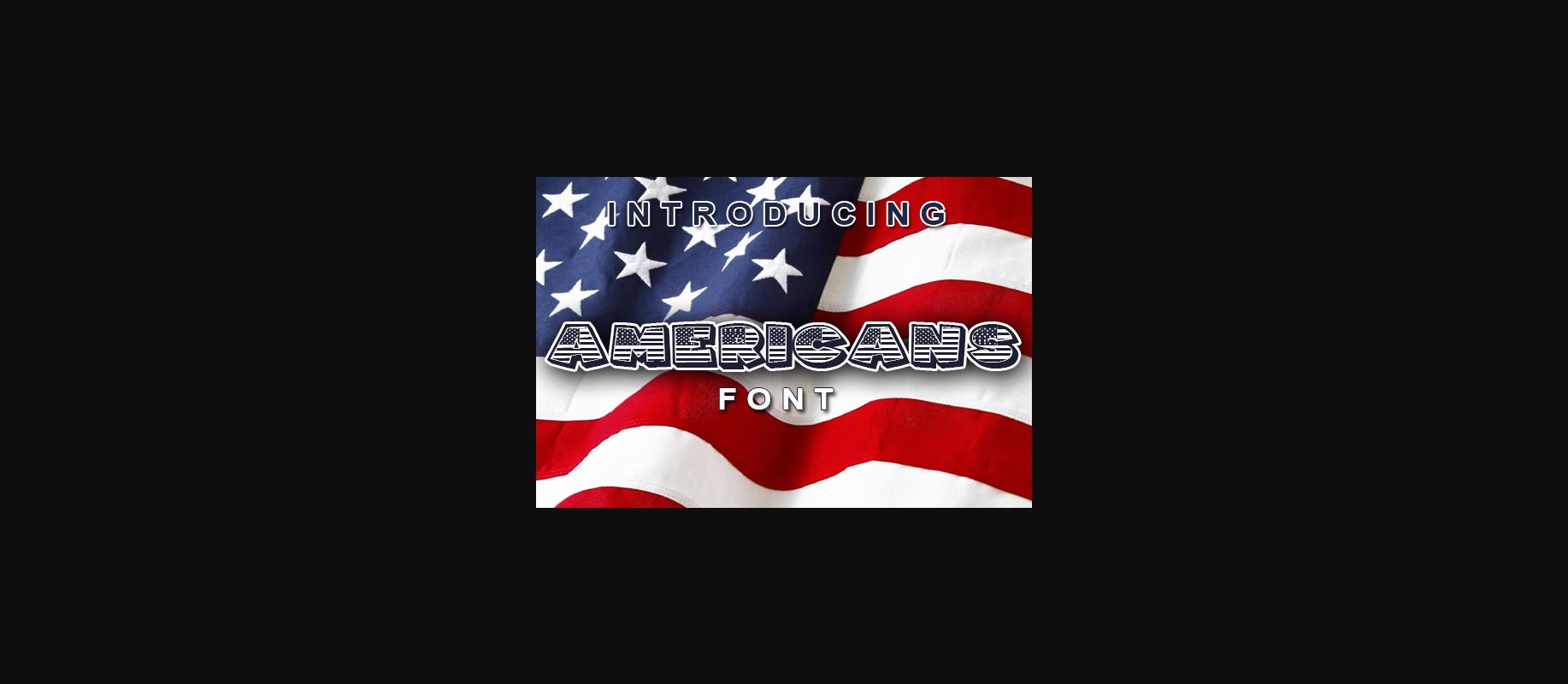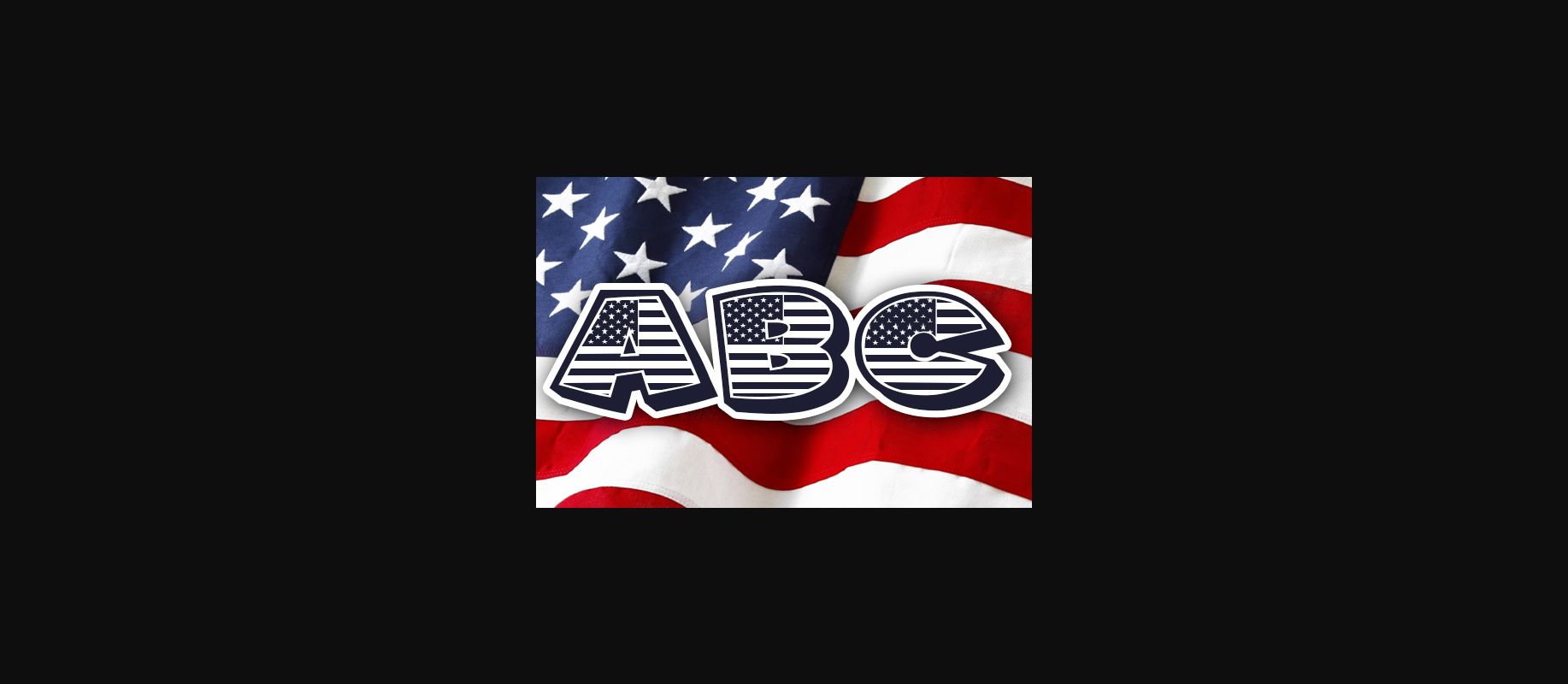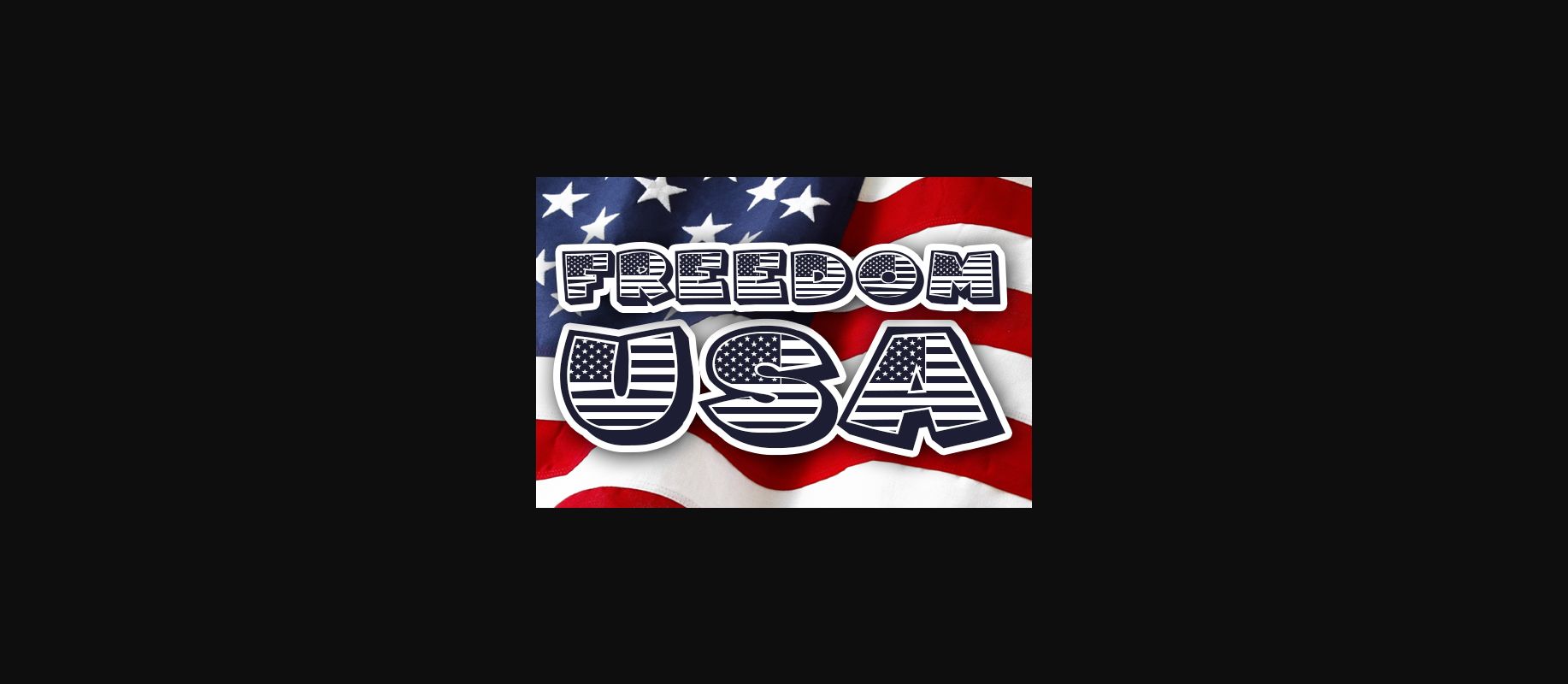
Americans Font
About Americans Font
Are you looking for an american flag font? You found it! The Americans is a great decorative font. It will look amazing in any american project!